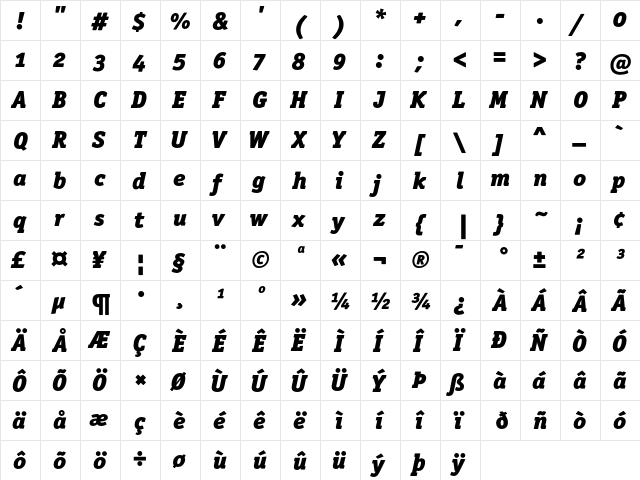
OfficinaSerITC BlackItalicOS
Design Context for OfficinaSerITC Typeface
OfficinaSerITC offers clean, dependable letterforms without strong stylistic allegiance, making it a practical choice for designers who need flexibility. Its italic angle brings a sense of urgency and motion to the letterforms.
Pro Tip: Use OfficinaSerITC for emphasis, pull quotes, and subheadings where its slanted energy can add rhythm to the layout.